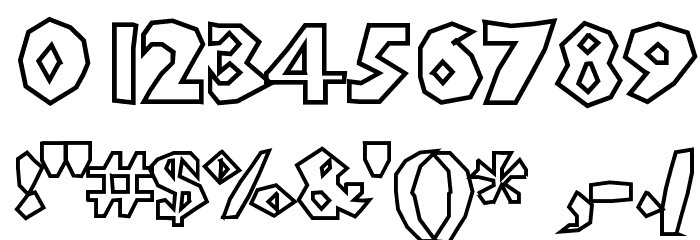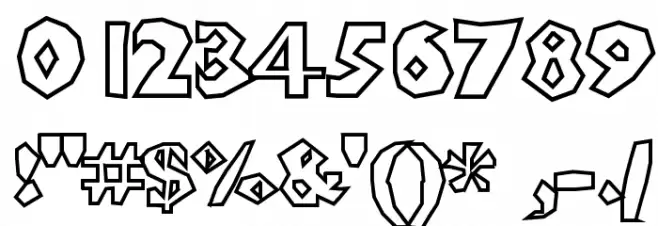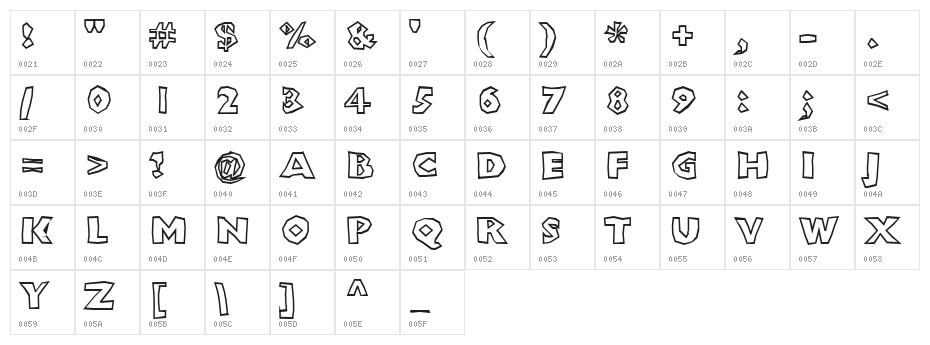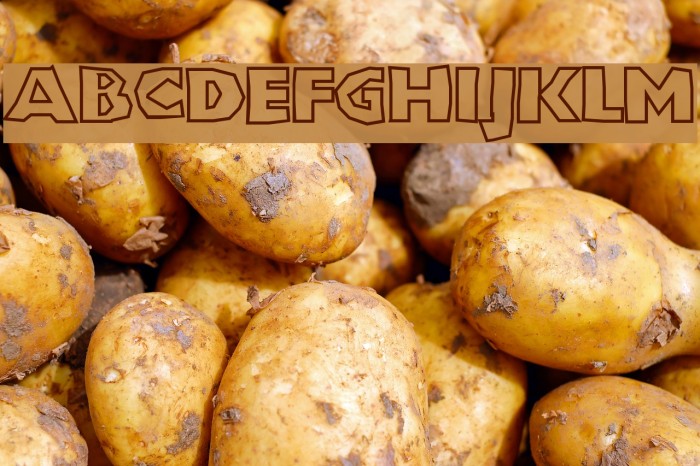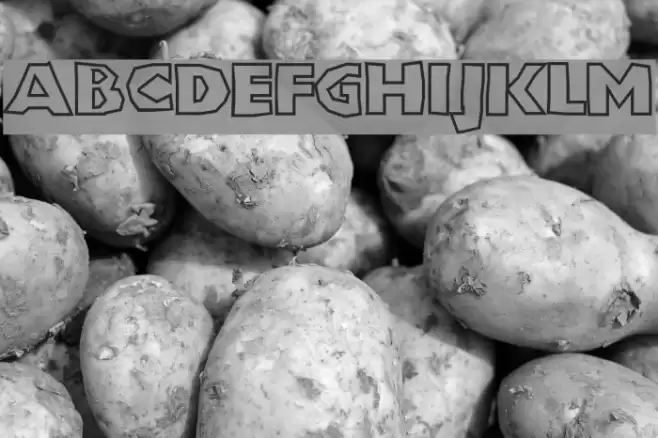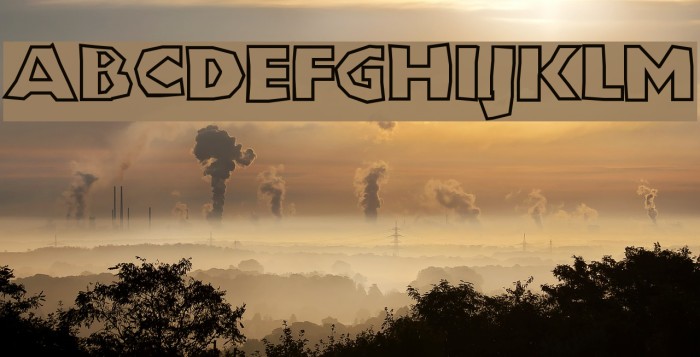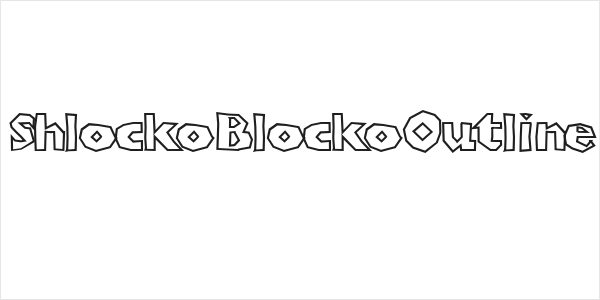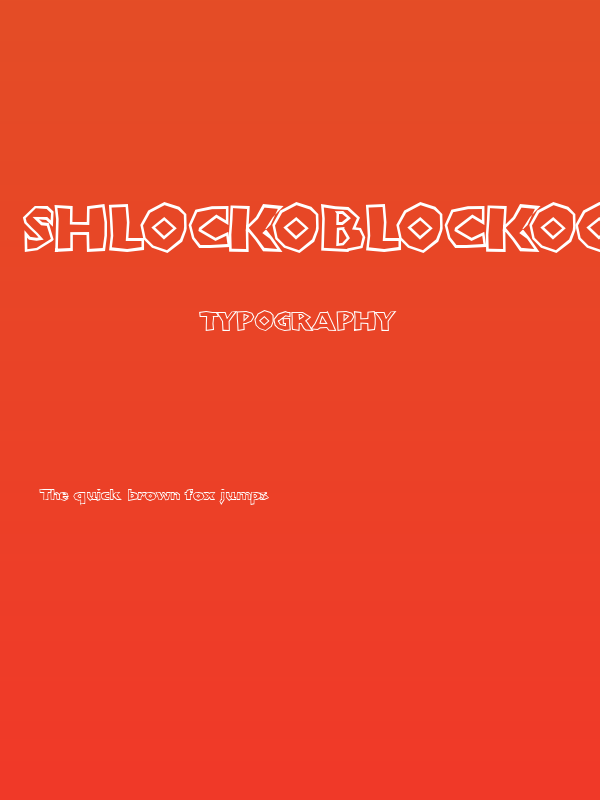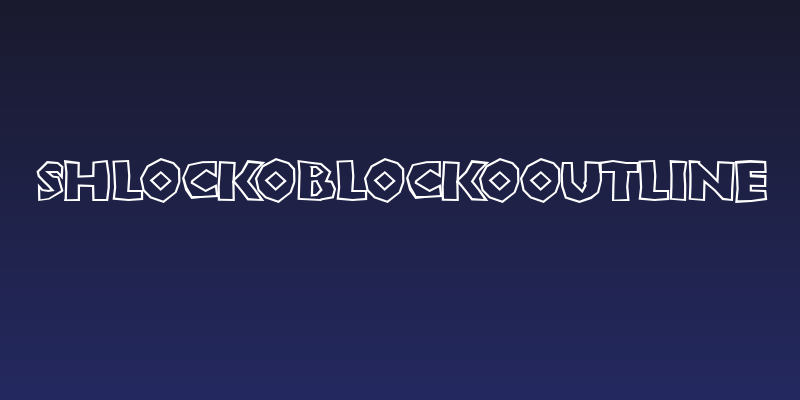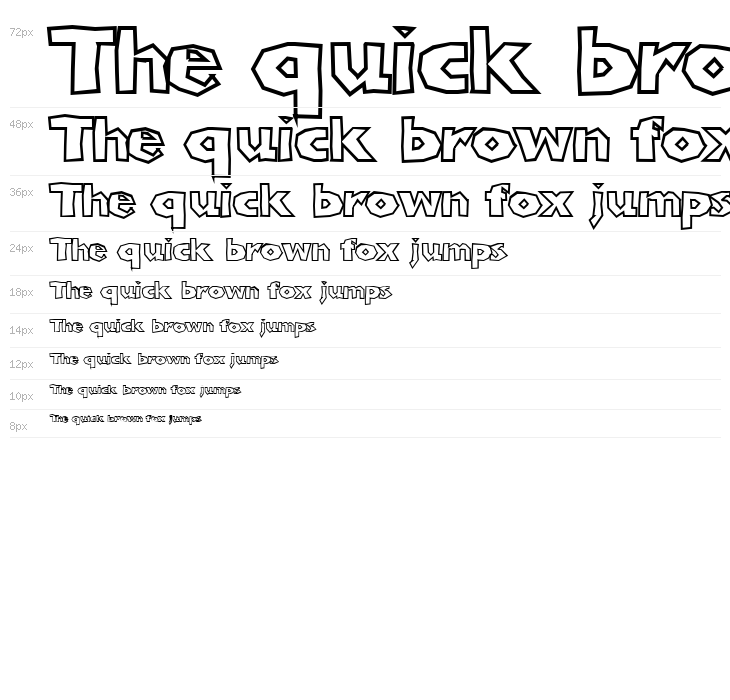
ShlockoBlockoOutline Font
ShlockoBlockoOutline Description
This font features a bold, outlined style with a geometric and blocky appearance. Each character is defined by thick, angular lines that create a sense of depth and dimension. The uppercase and lowercase letters maintain a consistent style, with sharp edges and a playful, almost cartoonish quality. Numbers and special characters follow the same design principles, ensuring uniformity across all glyphs. The font's unique outline effect makes it stand out, adding a dynamic and eye-catching element to any design.
| Proposed Projects | Ideal for comic book titles, posters, children's book covers, and playful branding projects. |